Skeleton
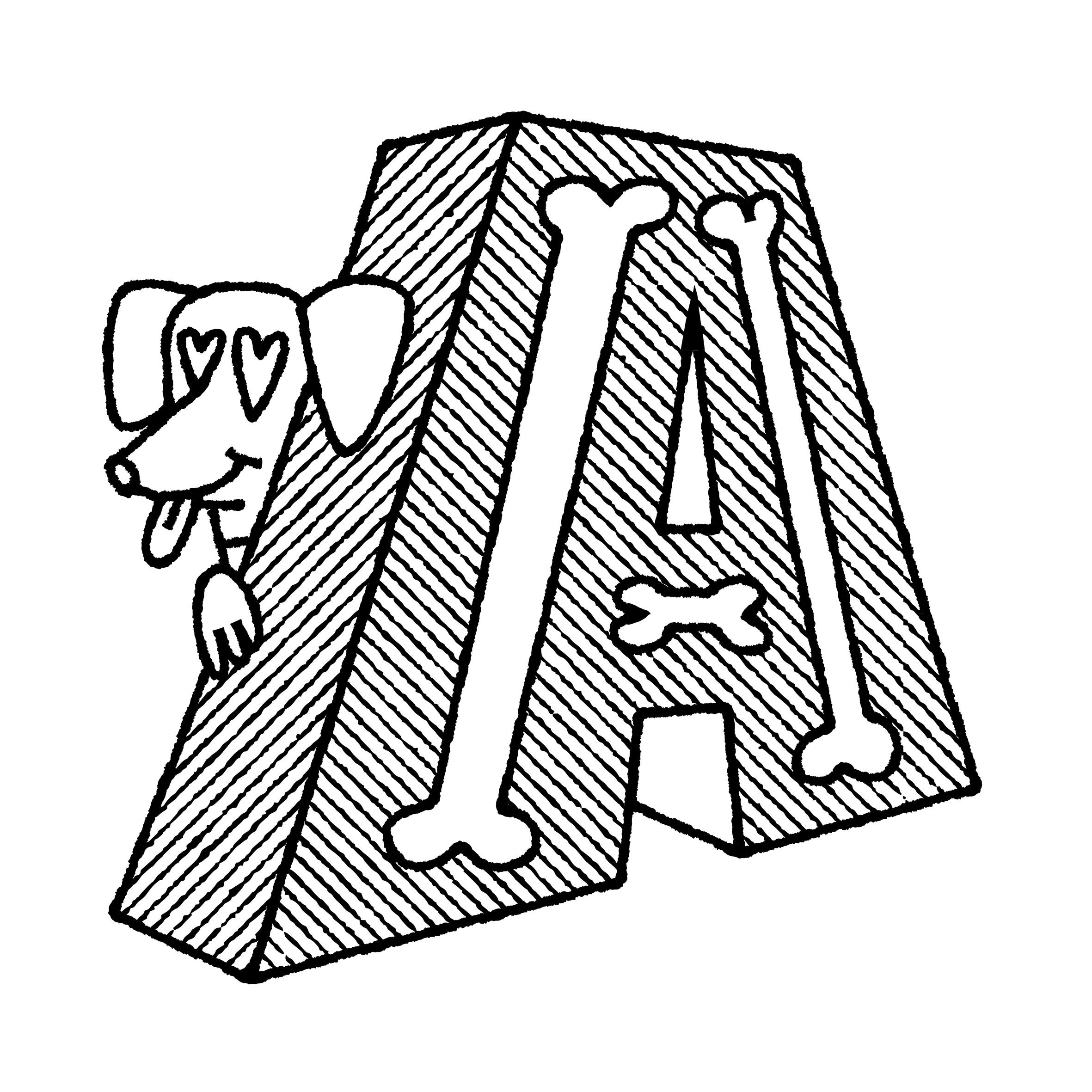
Many terms are borrowed from architecture or human and animal anatomy to designate and describe parts of letters and other characters. We even speak of type design anatomy.
The skeleton is the center line around which every part of a glyph is built (weight, contrast, curvature, terminals, etc.). Keeping the skeleton the same across multiple styles of one typeface family is, by definition, keeping the same structure, which is one of the principal ways to maintain design consistency.